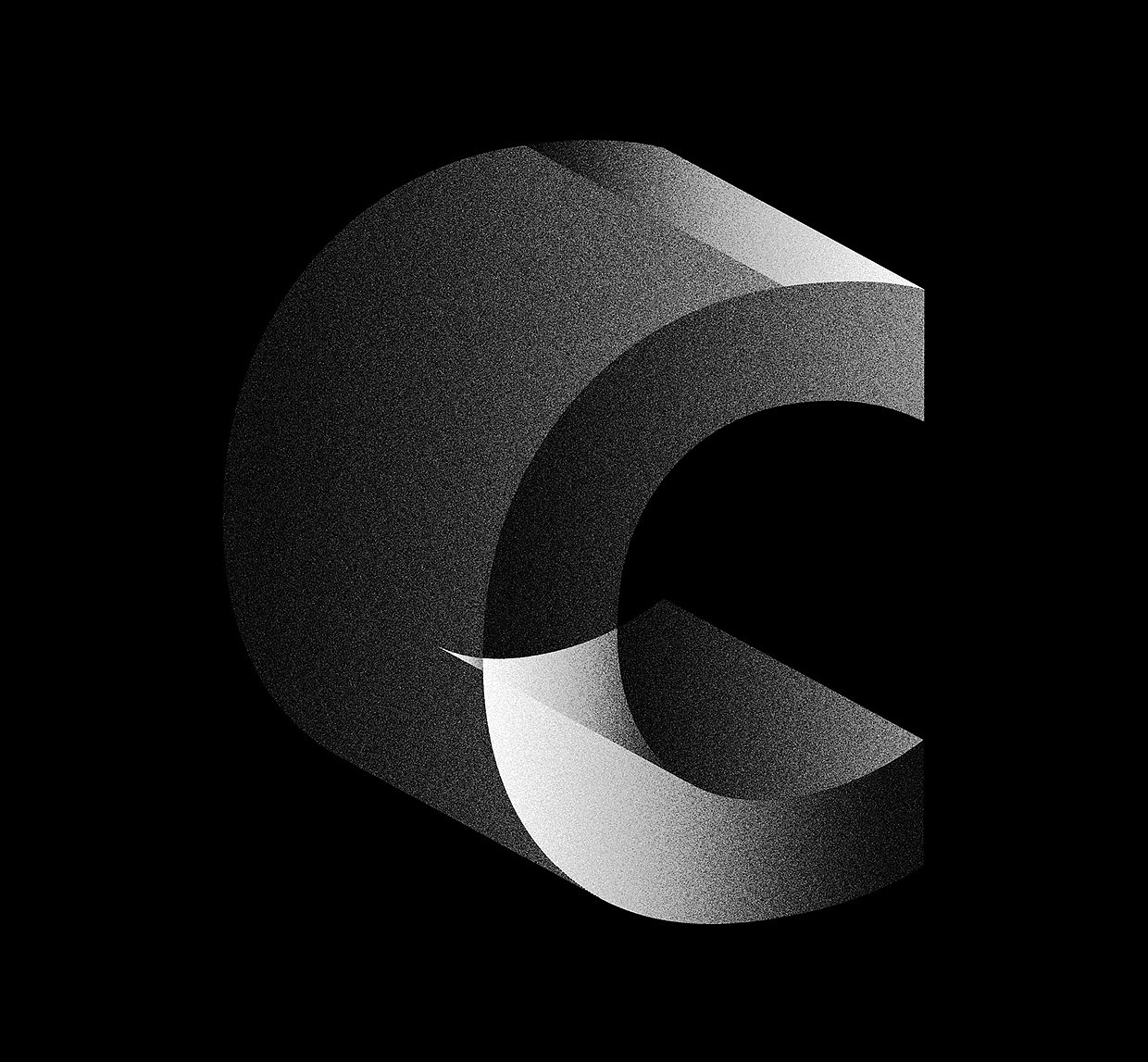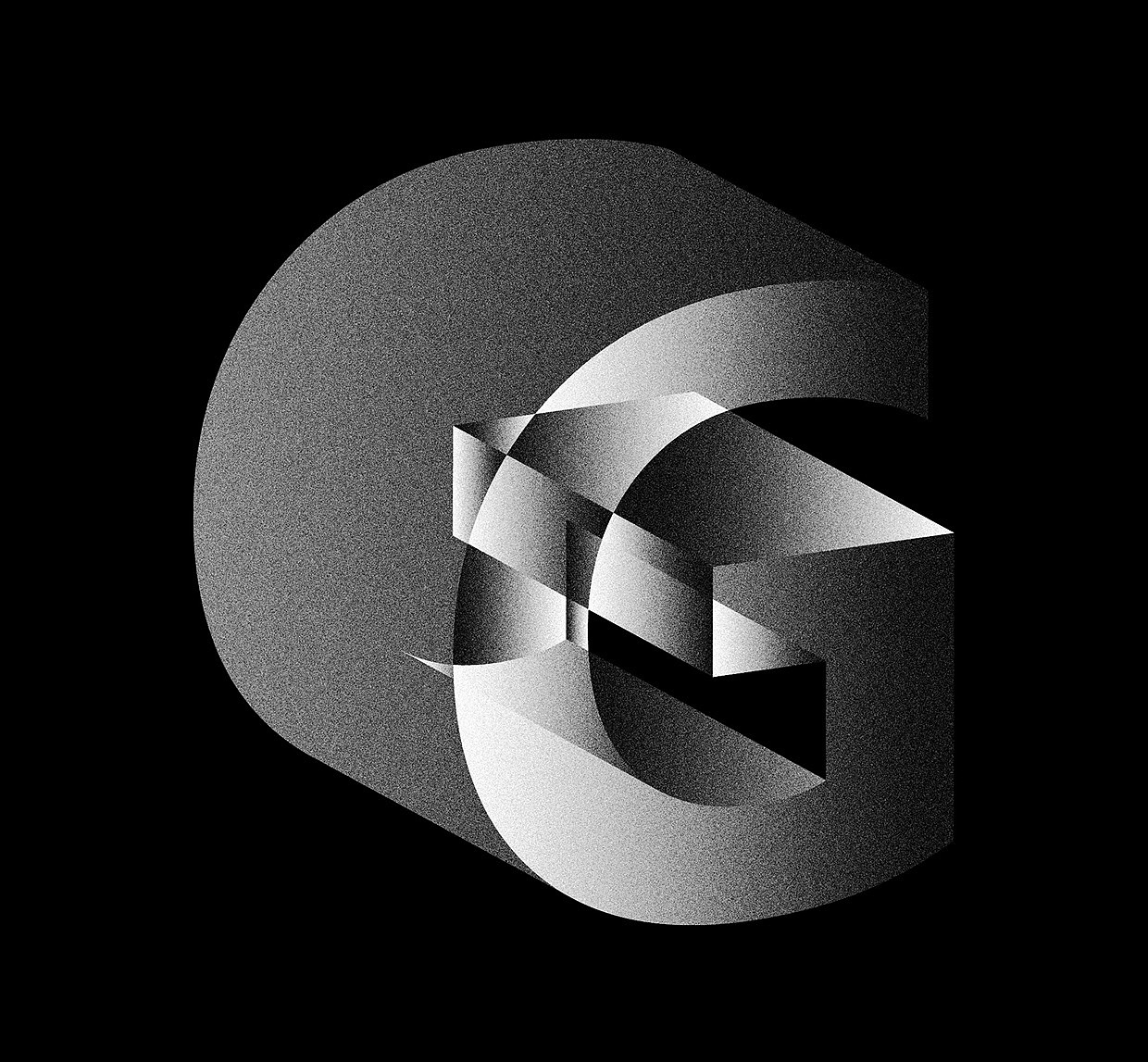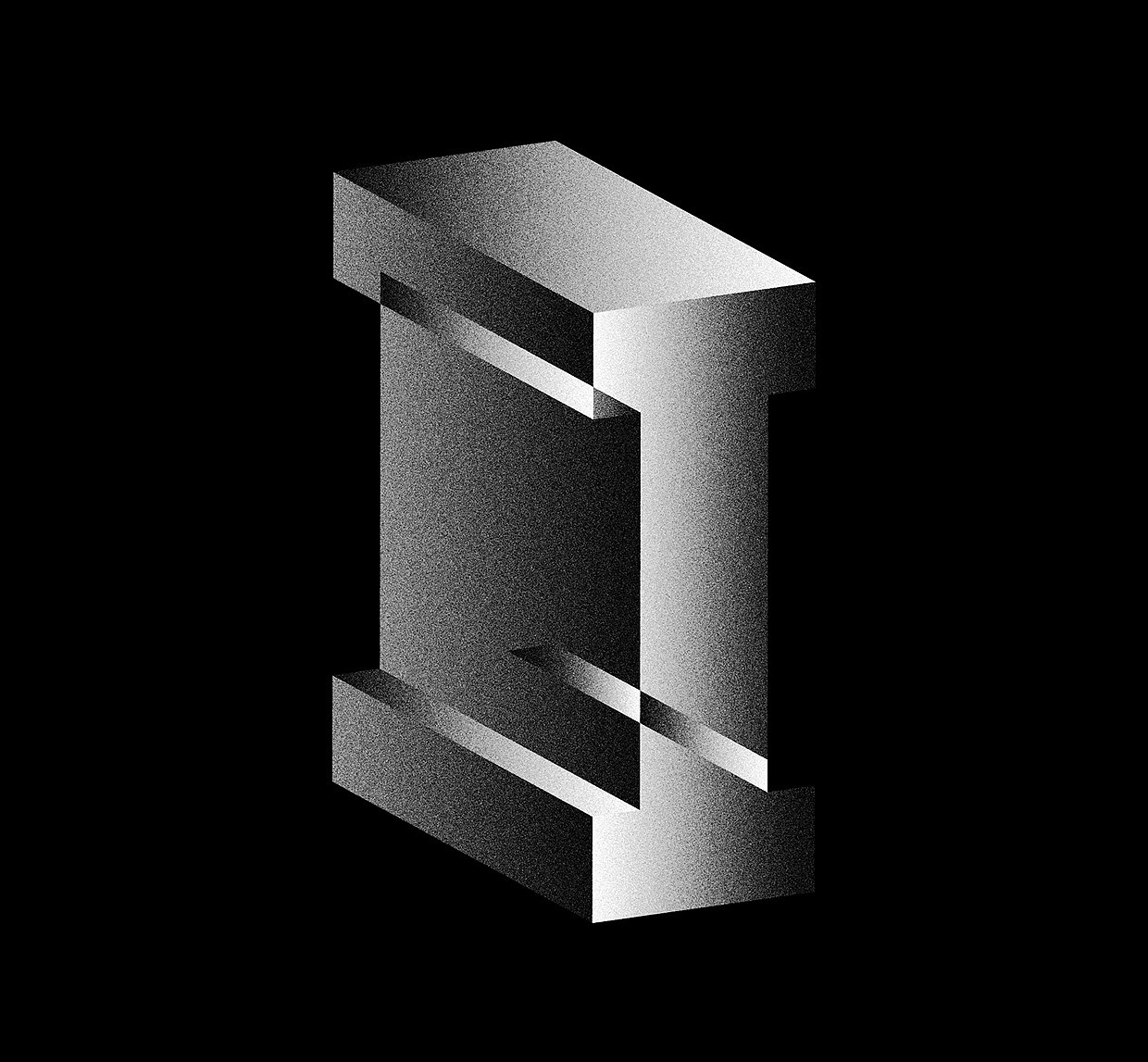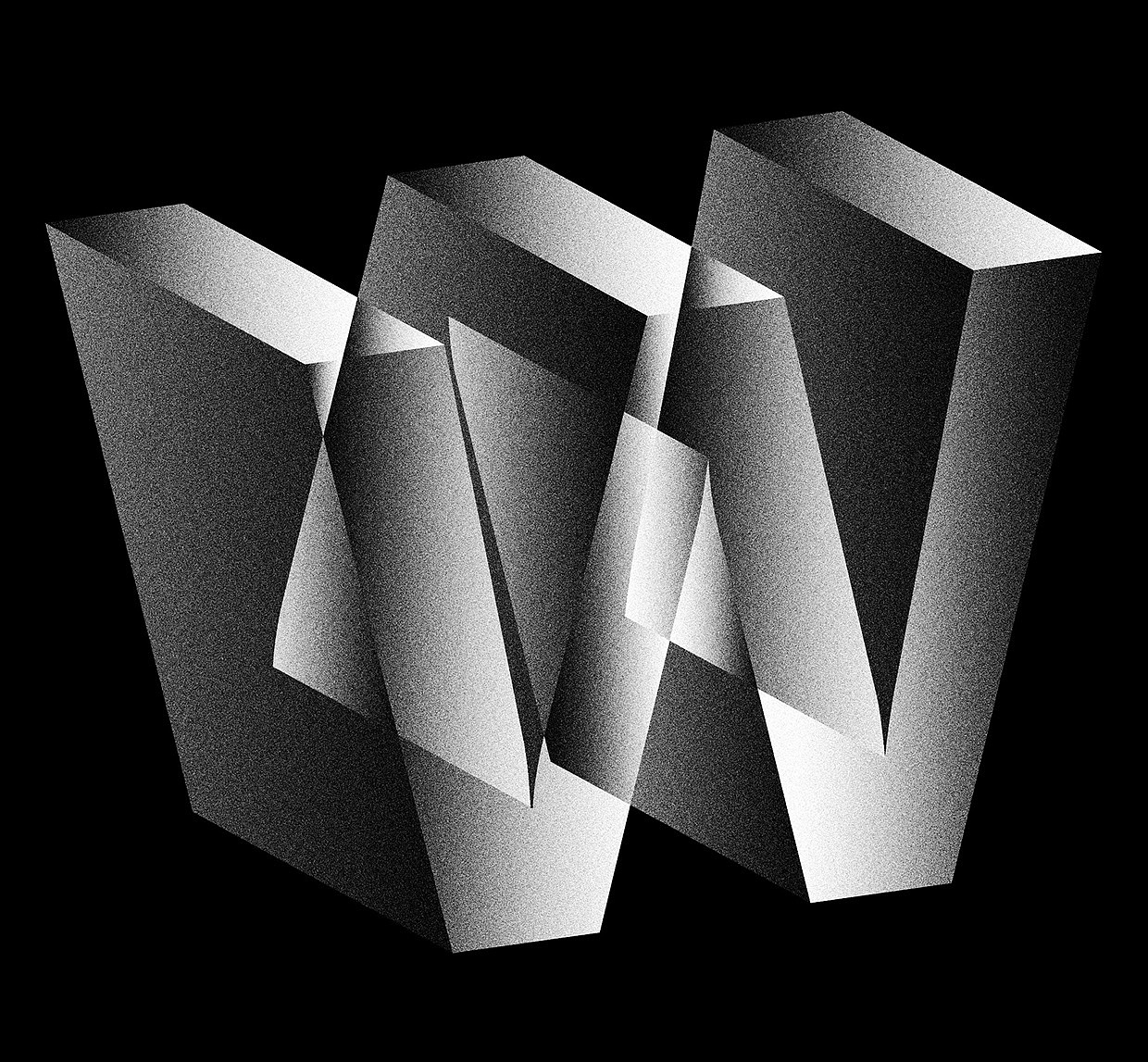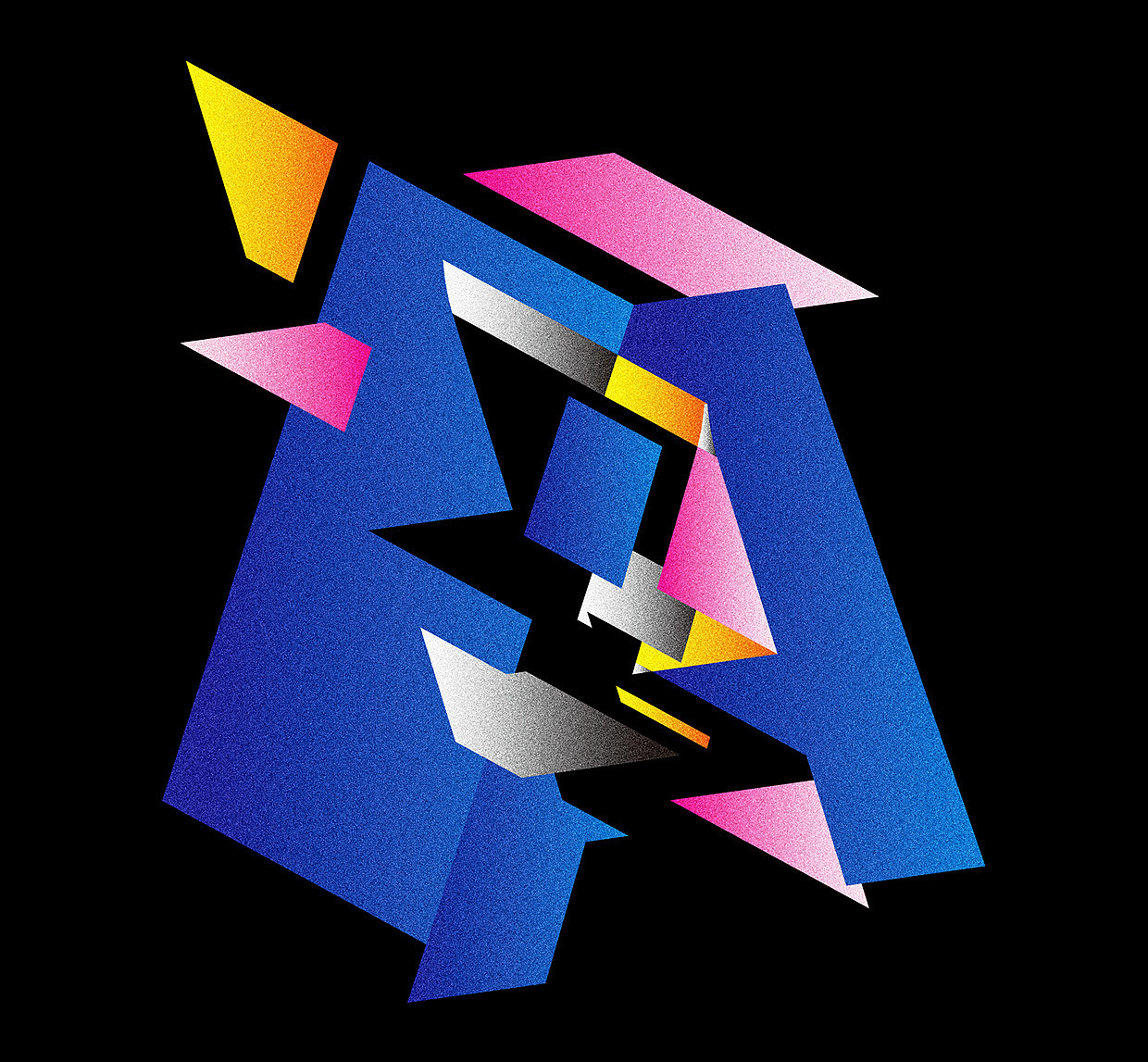
Glitchspace
Glitchspace - Experimental type
I have tried to create a kind of unreasonable space, each letter represents each kind of different space, make the space and English letters to produce internal connecting and visual logic is the purpose of my experiments.